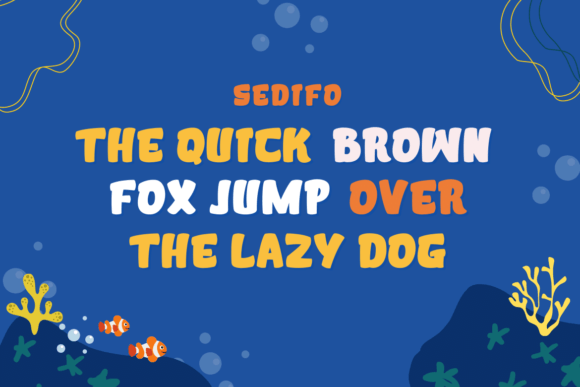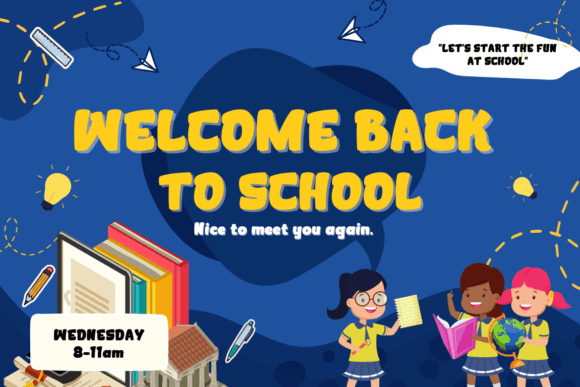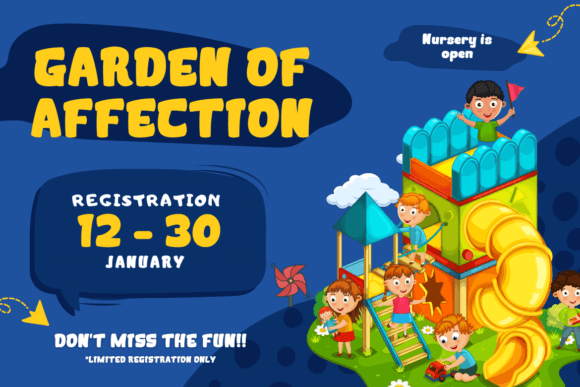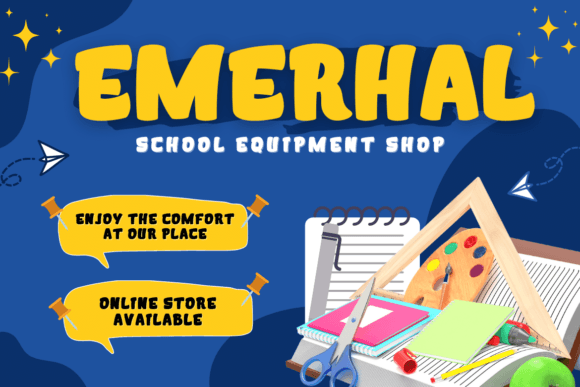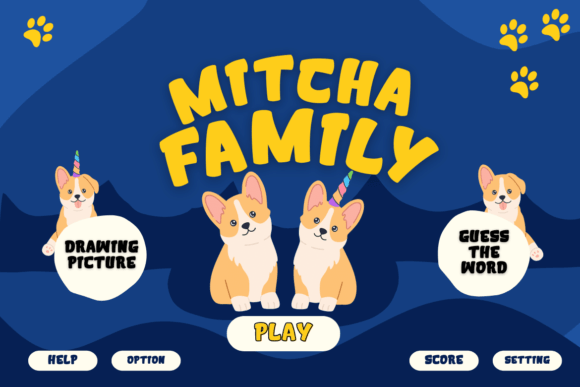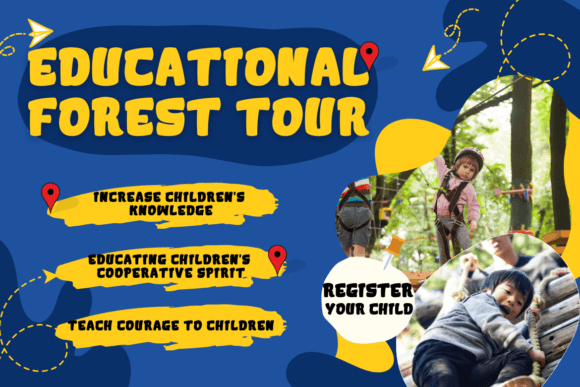
Introduction to Sedifo Font
Sedifo is a fun, cheerful, and unique font.
When used in conjunction with other fonts in our collection, it gives you the ability to create unique, captivating, and highly impressive visual displays This multipurpose font will be very easy for you to use in your various projects.
Sedifo Font offers exceptional quality and versatility, making it a valuable addition to your design toolkit. Whether you’re creating for personal projects or commercial use, Sedifo Font delivers professional results.